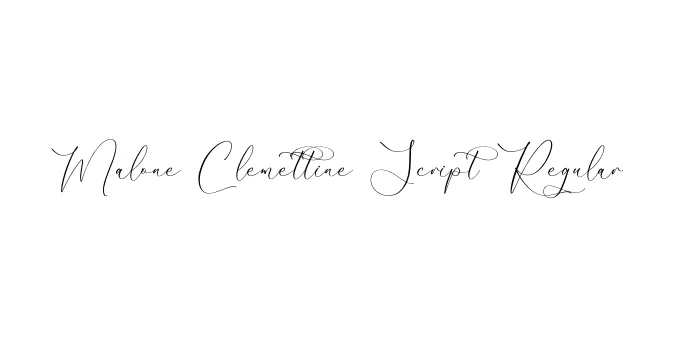
Malone Clemettine Script Regular
Malone Clemettine Script Regular is a sophisticated and fluid modern calligraphy typeface that embodies elegance and artistic flair. Designed with a focus on natural rhythm, the font features sweeping strokes and graceful ligatures that mimic authentic hand-lettering. Its delicate balance between traditional script and contemporary style makes it an essential tool for designers seeking to add a personal, high-end touch to their creative projects.
This typeface is highly versatile, boasting a range of OpenType features that include stylistic alternates and swashes, allowing for a truly bespoke typographic experience. Whether used for luxury brand identities or intimate stationery, Malone Clemettine provides a seamless flow that enhances readability while maintaining a distinct, hand-crafted aesthetic that stands out in both digital and print media.
Malone Clemettine Script Regular Best Uses
Creates a romantic and personalized look for ceremony stationery.
Perfect for high-end logos, perfume packaging, and boutique identities.
Ideal for aesthetic quotes, lifestyle blog headers, and Instagram stories.
Adds a sophisticated, handwritten touch to fashion magazine headlines.